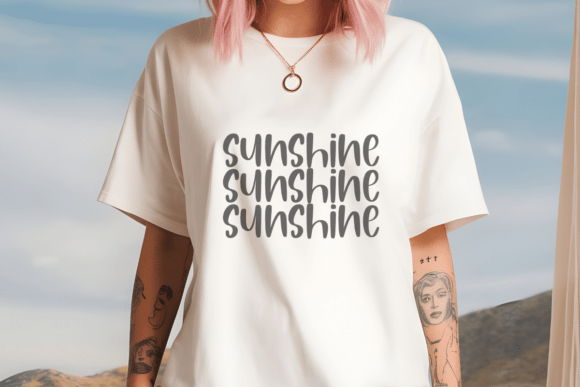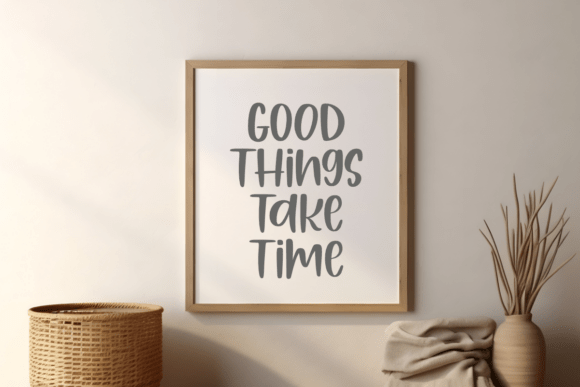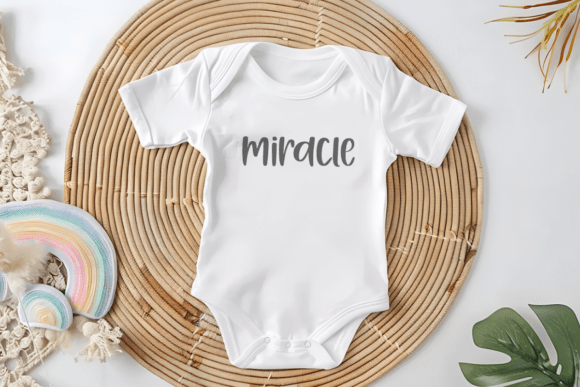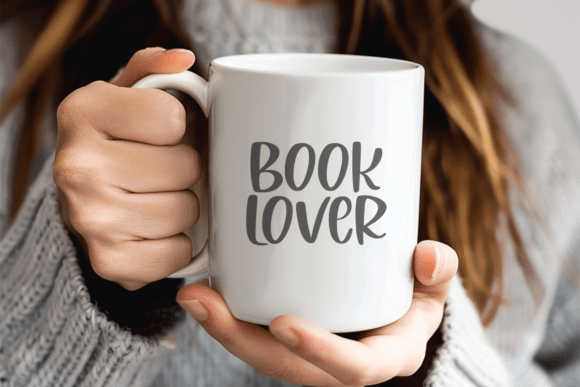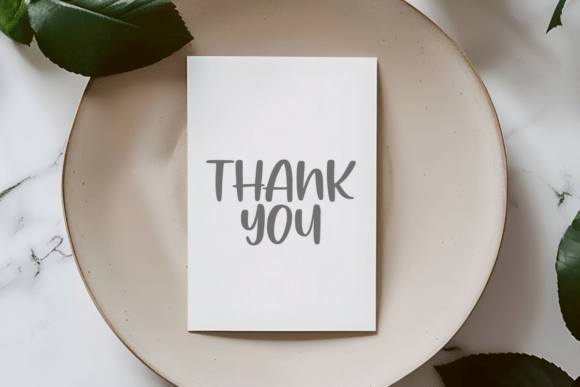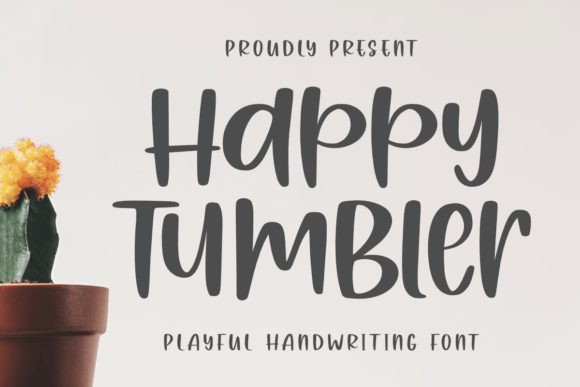
Introducing Happy Tumbler Font: The Ultimate Choice for Playful Designs
Are you a designer or crafter looking for a font that can add a touch of playfulness to your creative projects? Look no further than Happy Tumbler Font! This fun and cheerful handwritten font is perfect for designing tumblers, mugs, Mother’s Day crafts, kids’ shirts, stickers, and much more. With its smooth strokes and friendly vibes, Happy Tumbler is sure to bring a smile to anyone’s face.
The Characteristics of Happy Tumbler Font
So, what makes Happy Tumbler Font so special? Here are just a few of its key characteristics:
- Handwritten style: Happy Tumbler Font has a beautiful, handwritten style that gives it a personal and unique touch.
- Smooth strokes: The font features smooth, flowing strokes that make it perfect for creating a wide range of designs.
- Playful vibe: Happy Tumbler Font has a fun and playful vibe that’s sure to add a touch of joy to any design.
- Versatile: This font is incredibly versatile and can be used for a wide range of projects, from tumblers and mugs to kids’ shirts and stickers.
Uses for Happy Tumbler Font
So, what can you use Happy Tumbler Font for? The possibilities are endless! Here are just a few ideas to get you started:
- Tumblers and mugs: Add a personal touch to your drinkware with Happy Tumbler Font. It’s perfect for creating custom tumblers and mugs for special occasions or everyday use.
- Mother’s Day crafts: Create beautiful, handmade crafts for Mother’s Day with Happy Tumbler Font. From cards to gift tags, this font is sure to add a touch of love and care to your designs.
- Kids’ shirts: Happy Tumbler Font is perfect for designing fun and playful kids’ shirts. Add a personal touch to your little ones’ wardrobe with custom designs featuring this cheerful font.
- Stickers: Create custom stickers with Happy Tumbler Font for a wide range of uses, from labeling school supplies to decorating laptops.
Why Choose Happy Tumbler Font?
So, why should you choose Happy Tumbler Font for your next project? Here are just a few reasons:
- Easy to read: Happy Tumbler Font is easy to read, even at small sizes, making it perfect for a wide range of designs.
- Unique style: This font has a unique, handwritten style that’s sure to set your designs apart from the crowd.
- Customizable: Happy Tumbler Font is fully customizable, allowing you to adjust the font size, color, and style to suit your needs.
- Fun and playful: This font is sure to add a touch of fun and playfulness to any design, making it perfect for projects that require a bit of whimsy.
Tips for Using Happy Tumbler Font
Here are a few tips for getting the most out of Happy Tumbler Font:
- Experiment with colors: Happy Tumbler Font looks great in a wide range of colors, so don’t be afraid to experiment and find the perfect hue for your design.
- Pair with other fonts: This font pairs well with a wide range of other fonts, so feel free to get creative and try out different combinations.
- Use it for titles and headings: Happy Tumbler Font is perfect for titles and headings, adding a touch of playfulness and whimsy to your designs.
In conclusion, Happy Tumbler Font is a fun and cheerful handwritten font that’s perfect for adding a touch of playfulness to your creative projects. With its smooth strokes and friendly vibes, it’s sure to bring a smile to anyone’s face. Whether you’re designing tumblers, mugs, Mother’s Day crafts, kids’ shirts, stickers, or anything else, Happy Tumbler Font is the perfect choice. So why wait? Download Happy Tumbler Font today and start creating your own unique and playful designs!